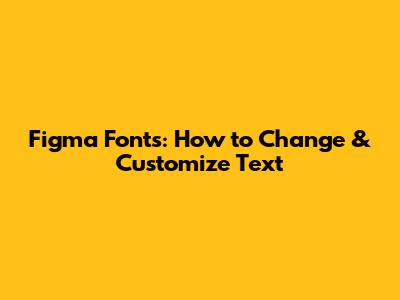
Figma Fonts: How To Change & Customize Text
Hey guys! Ever wondered how to change fonts in Figma and make your designs pop? Well, you're in the right place! Figma is an amazing design tool, and knowing how to tweak your fonts is crucial for creating stunning visuals. In this guide, we'll walk you through everything you need to know about changing fonts in Figma, from the basics to some cool tricks. Let's dive in!
Understanding Fonts in Figma
Before we jump into the how-to, let's quickly cover the basics. Fonts play a massive role in the overall look and feel of your design. The right font can convey the right emotion, set the tone, and improve readability. Figma supports a wide variety of fonts, including Google Fonts and custom fonts, giving you plenty of options to choose from. Knowing how to effectively manage and change these fonts is essential for any designer using Figma. Whether you are working on a website design, mobile app interface, or creating social media graphics, the fonts you choose and how you implement them can significantly impact the user experience and the overall success of your design. So, let's get acquainted with the font tools and options available in Figma.
Why Font Choice Matters
Font choice is super important in design because it does more than just display words; it communicates personality, mood, and intent. Think about it: a playful, rounded font might be perfect for a children's book, but it would look totally out of place on a serious legal document. Similarly, a sleek, modern font can give a tech startup a cutting-edge vibe, while a classic serif font might lend credibility to a financial institution. The right font can enhance readability, ensuring that your message is easily understood by your audience. It also contributes to the overall aesthetic appeal of your design, making it more engaging and visually pleasing. Furthermore, consistent use of fonts helps to establish a strong brand identity, making your designs instantly recognizable. So, taking the time to choose the right fonts and understanding how to use them effectively is a crucial part of the design process.
Figma's Font Support
Figma makes it easy for designers to access a wide range of fonts, which is awesome! By default, Figma comes pre-loaded with a selection of system fonts that are readily available for use in your projects. These fonts are generally reliable and cover a broad spectrum of styles, making them a good starting point for many designs. But the real power of Figma lies in its seamless integration with Google Fonts. Google Fonts is a vast, open-source library containing hundreds of font families, all of which are free to use. This integration means that you can access an incredible variety of fonts directly from within Figma, without having to download or install anything. Figma also supports custom fonts, allowing you to upload and use fonts that aren't available in the Google Fonts library. This is particularly useful if you have a specific brand font or want to use a unique typeface that sets your designs apart. The ability to use system fonts, Google Fonts, and custom fonts gives you the flexibility to find the perfect typeface for any project, ensuring that your designs always look their best. By understanding and leveraging Figma's font support, you can create visually stunning and effective designs that accurately reflect your brand and message.
Step-by-Step Guide to Changing Fonts
Alright, let's get into the nitty-gritty of changing fonts in Figma. Here’s a step-by-step guide to help you out:
- Select the Text Layer: First, you need to select the text layer you want to modify. You can do this by clicking directly on the text box in your design or by selecting the layer from the Layers panel on the left side of the screen. Make sure the layer is active and highlighted, indicating that it is ready for editing.
- Open the Text Panel: On the right side of your screen, you'll see the Properties panel. If it's not already open, look for the "Text" tab (it looks like a "T") and click on it. This will open the Text panel, where you can access all the font-related settings.
- Choose Your Font: In the Text panel, you’ll see a dropdown menu labeled "Font." Click on this menu to reveal a list of available fonts. Figma organizes fonts into different categories, such as recently used fonts, Google Fonts, and local fonts. Scroll through the list or use the search bar to find the font you want to use. When you find a font you like, simply click on it to apply it to your selected text layer.
- Adjust Font Styles: Once you've chosen your font, you can further customize its appearance by adjusting the font style. Below the font selection dropdown, you'll see options for font weight (e.g., Regular, Bold, Italic) and font size. Use these options to fine-tune the look of your text. For example, you might want to make a heading bold to make it stand out or use italics to emphasize a particular word or phrase.
- Fine-Tune Typography: Figma offers even more advanced typography settings in the Text panel. You can adjust the line height, letter spacing (tracking), and paragraph spacing to perfect the readability and visual appeal of your text. Experiment with these settings to achieve the desired effect. For example, increasing the line height can make long paragraphs easier to read, while adjusting the letter spacing can create a more elegant or modern look.
By following these steps, you can easily change fonts in Figma and customize your text to create visually appealing and effective designs. Whether you're working on a simple text block or a complex layout, these techniques will help you achieve the perfect typographic look.
Selecting the Text Layer
To start changing the font, you've got to select the text layer you want to work on. This is super easy! You can either click directly on the text box on your canvas, or you can find the layer in the Layers panel on the left side of your screen. The Layers panel organizes all the elements in your design, so if you have a lot of overlapping objects, it might be easier to select the layer from there. Once you've clicked on the text box or selected the layer, you'll see a blue outline around it, which means it's active and ready for editing. Make sure you select the right layer, especially if you have multiple text elements in your design. Selecting the correct layer ensures that any font changes you make will be applied to the intended text. This initial step is crucial because it sets the foundation for all subsequent edits. By mastering the art of layer selection, you can efficiently manage and manipulate text elements in your Figma projects, ensuring precision and control over your design.
Using the Text Panel
The Text panel in Figma is your best friend when it comes to tweaking fonts and typography. To access it, first make sure you've selected the text layer you want to modify. Then, look over to the right side of your Figma window. You should see a panel labeled “Design.” Within that panel, you'll find a section dedicated to text properties. It's usually marked with a big "T" icon. Click on that, and boom – you're in the Text panel! This panel is where all the magic happens. You can change the font family, adjust the font weight (like making it bold or light), alter the font size, modify the line height, and even play around with letter spacing. The Text panel gives you complete control over how your text looks, allowing you to fine-tune every aspect of your typography. Experiment with the different settings to see how they affect your text. Remember, the goal is to make your text readable, visually appealing, and consistent with the overall design. The Text panel is your playground – use it to create amazing typography that enhances your designs!
Conclusion
Changing fonts in Figma is a fundamental skill that can significantly impact your designs. By following this guide, you can easily customize your text and create visually appealing projects. So go ahead, experiment with different fonts, and let your creativity shine! Have fun designing, guys!